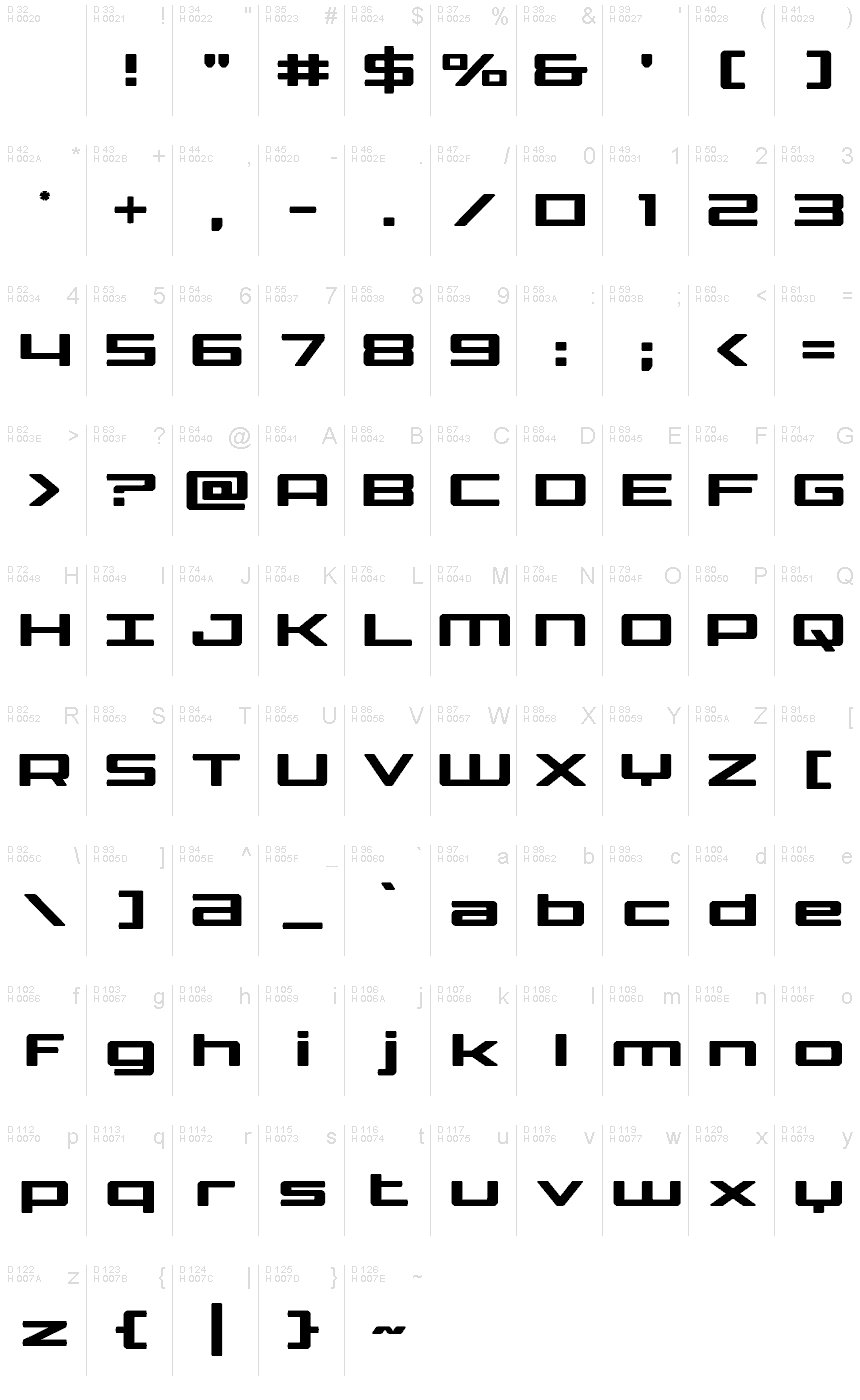
Phoenicia Lower Case
Phoenicia is a captivating display font that exudes a distinct techno-inspired aesthetic. Designed by Daniel Zadorozny, this expanded lower-case font commands attention with its bold, angular letterforms and sharp, geometric edges.
The Phoenicia typeface seamlessly blends modern sensibilities with a retro-futuristic flair, making it an ideal choice for a wide range of applications, from eye-catching headlines and logos to impactful signage and digital interfaces. Its expanded width lends a powerful, assertive presence, while the clean, minimalist lines convey a sense of sleek sophistication.
Phoenicia's versatility allows it to effortlessly adapt to diverse design projects, from sleek, high-tech branding to edgy, experimental compositions.
The Phoenicia typeface seamlessly blends modern sensibilities with a retro-futuristic flair, making it an ideal choice for a wide range of applications, from eye-catching headlines and logos to impactful signage and digital interfaces. Its expanded width lends a powerful, assertive presence, while the clean, minimalist lines convey a sense of sleek sophistication.
Phoenicia's versatility allows it to effortlessly adapt to diverse design projects, from sleek, high-tech branding to edgy, experimental compositions.